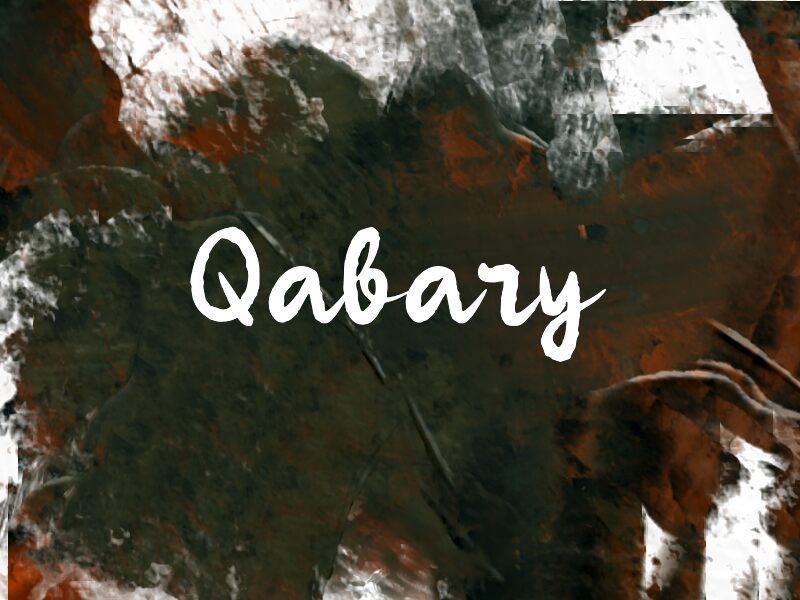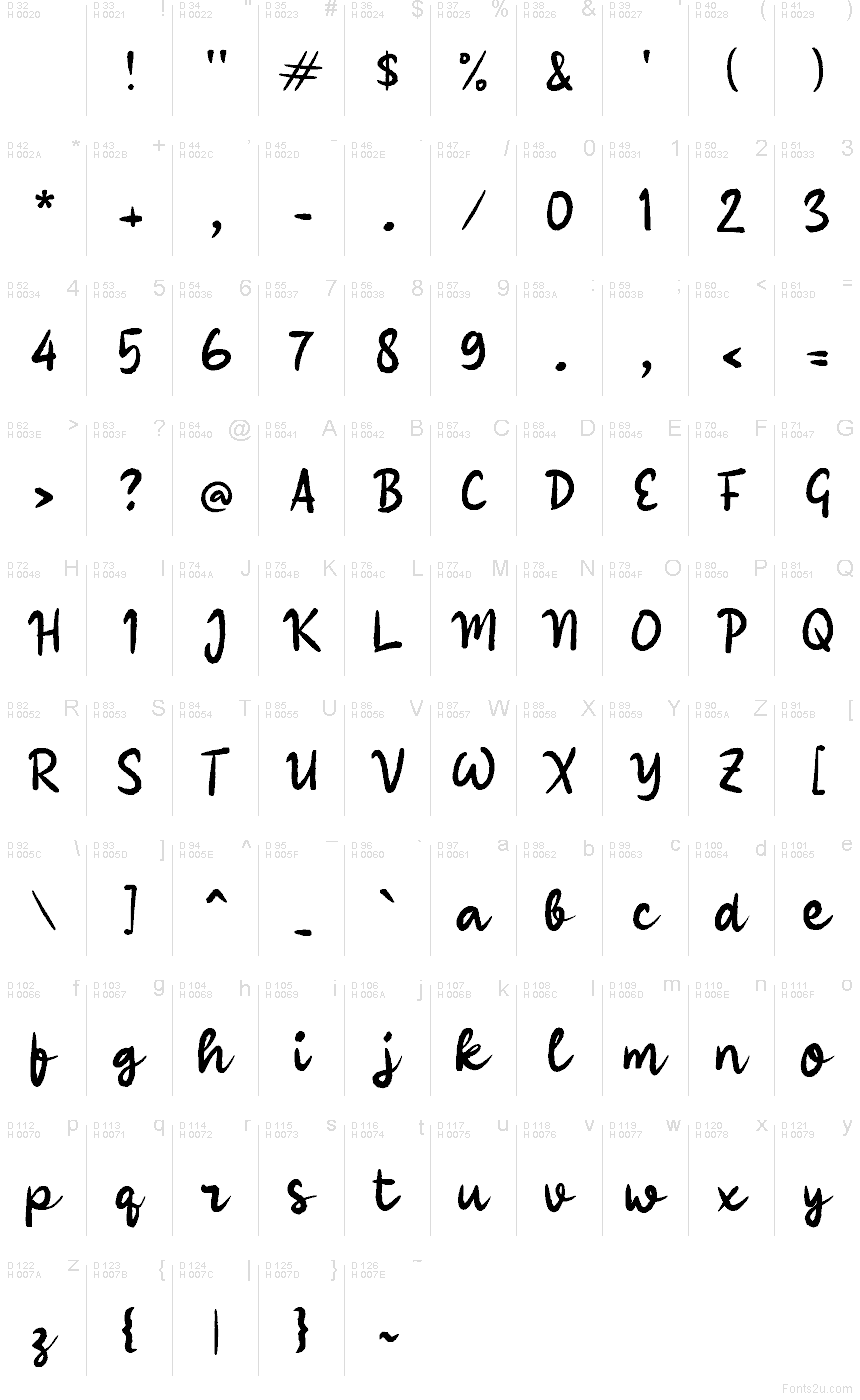
Qabary
Qabary font by wep is a free brush script typeface that feels like it was painted straight onto the screen with a loaded, slightly dry marker. Thick, inky strokes and quick, slanted letterforms give it a loose, hand-lettered energy—organic, a bit messy, and very human. The texture catches the eye immediately, making short words and phrases feel bold, spontaneous, and full of attitude.
Using Qabary, this free font shines on logo marks, coffee cups and craft packaging, postcard-style quotes, social media graphics, event posters, and casual invitations. Its lively rhythm works beautifully at larger sizes where the grain and brush edges can really show. For a clean, modern contrast, pair Qabary with a simple geometric sans for body text or small captions.